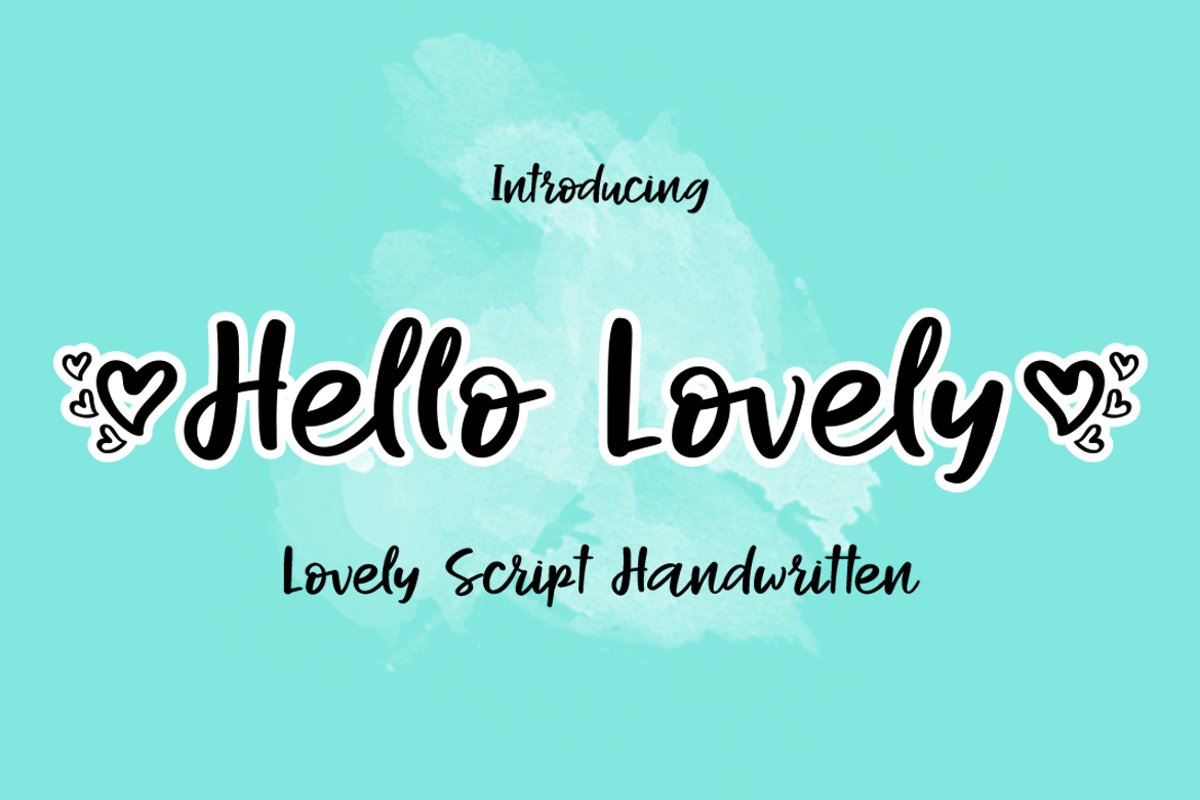
Hello lovely
Hello lovely is a sweet and friendly handwritten font.
Its natural and unique style makes it incredibly fitting to a large pool of designs.
The only limit is your imagination!
Ligature
Multilingual support - spread your message globally AÀÁÂÃÄÅCÇDÐEÈÉÌÍÎÏIÌÍÎÏNÑOØÒÓÔÕÖUÙÜÚÛWYÝŸÆßÞþ.